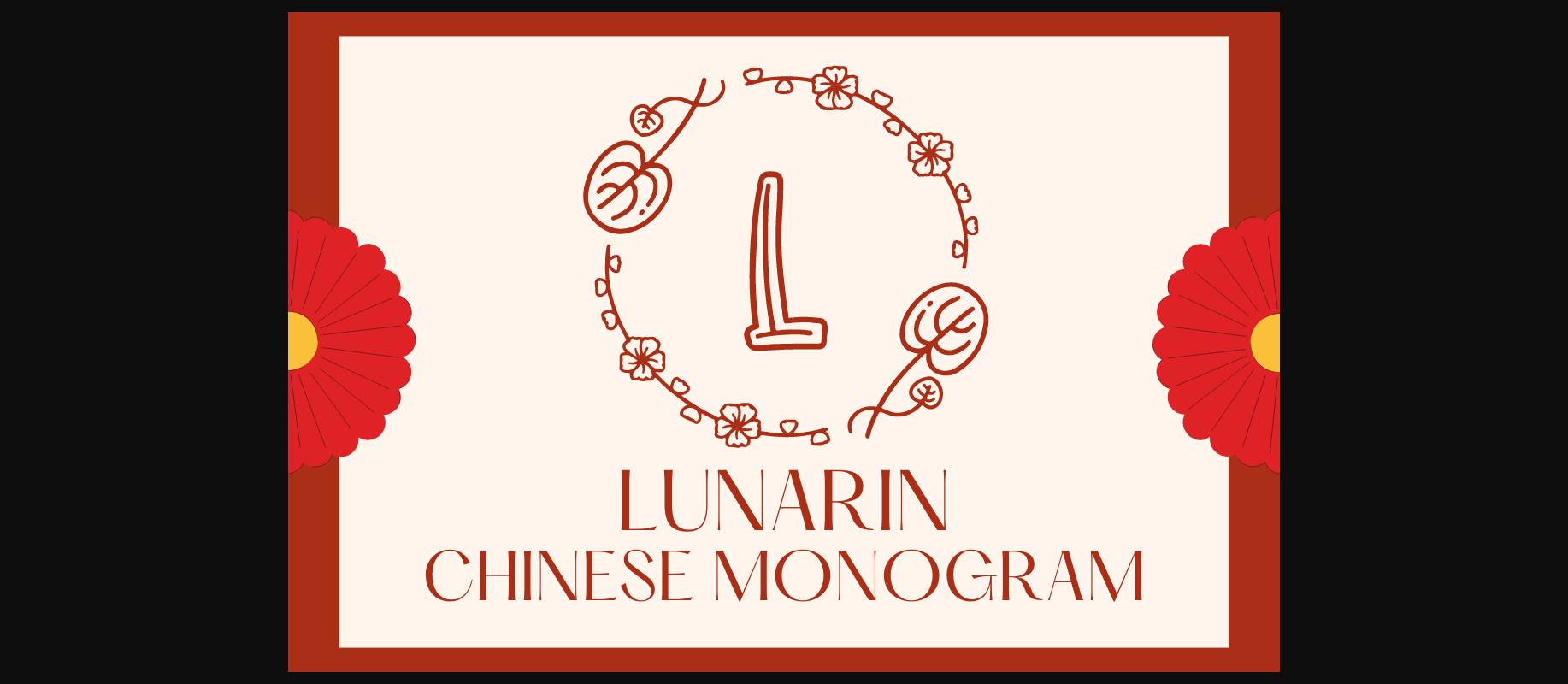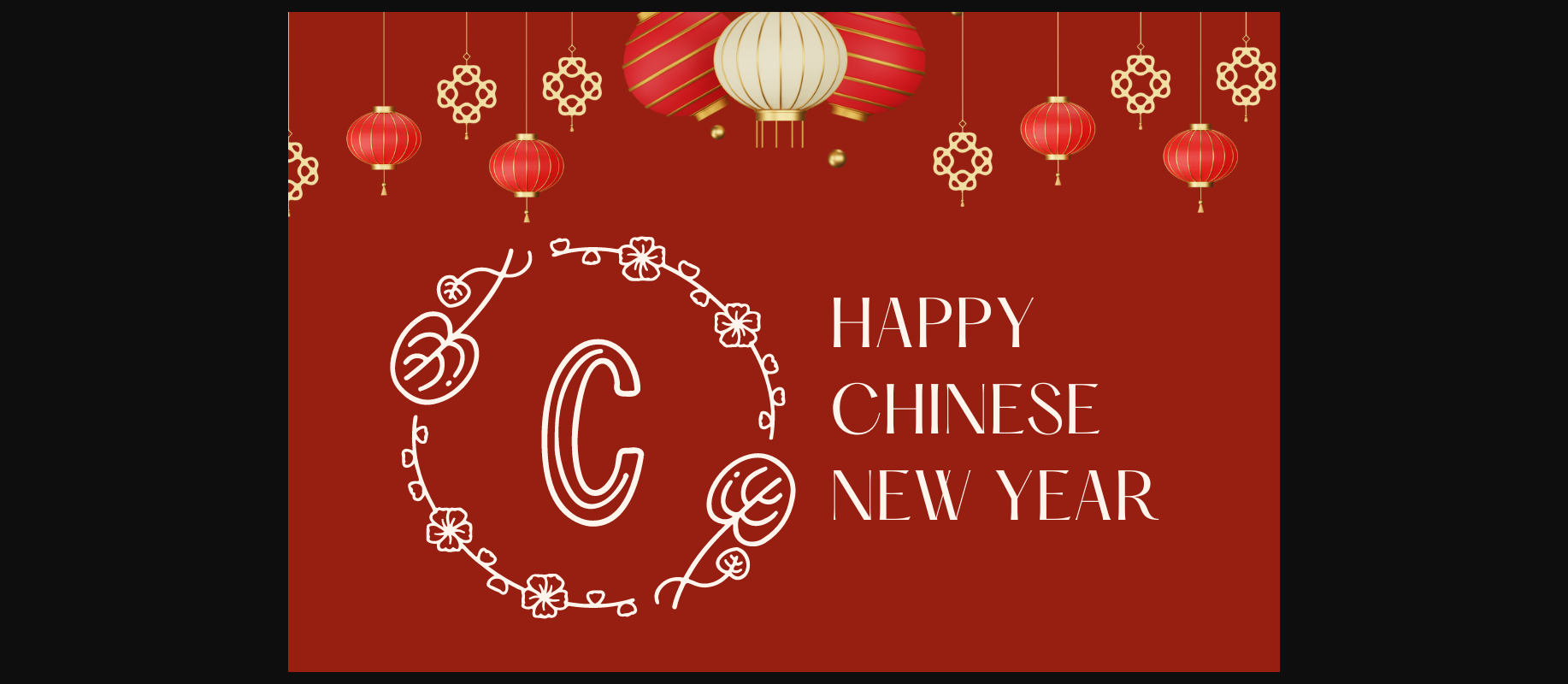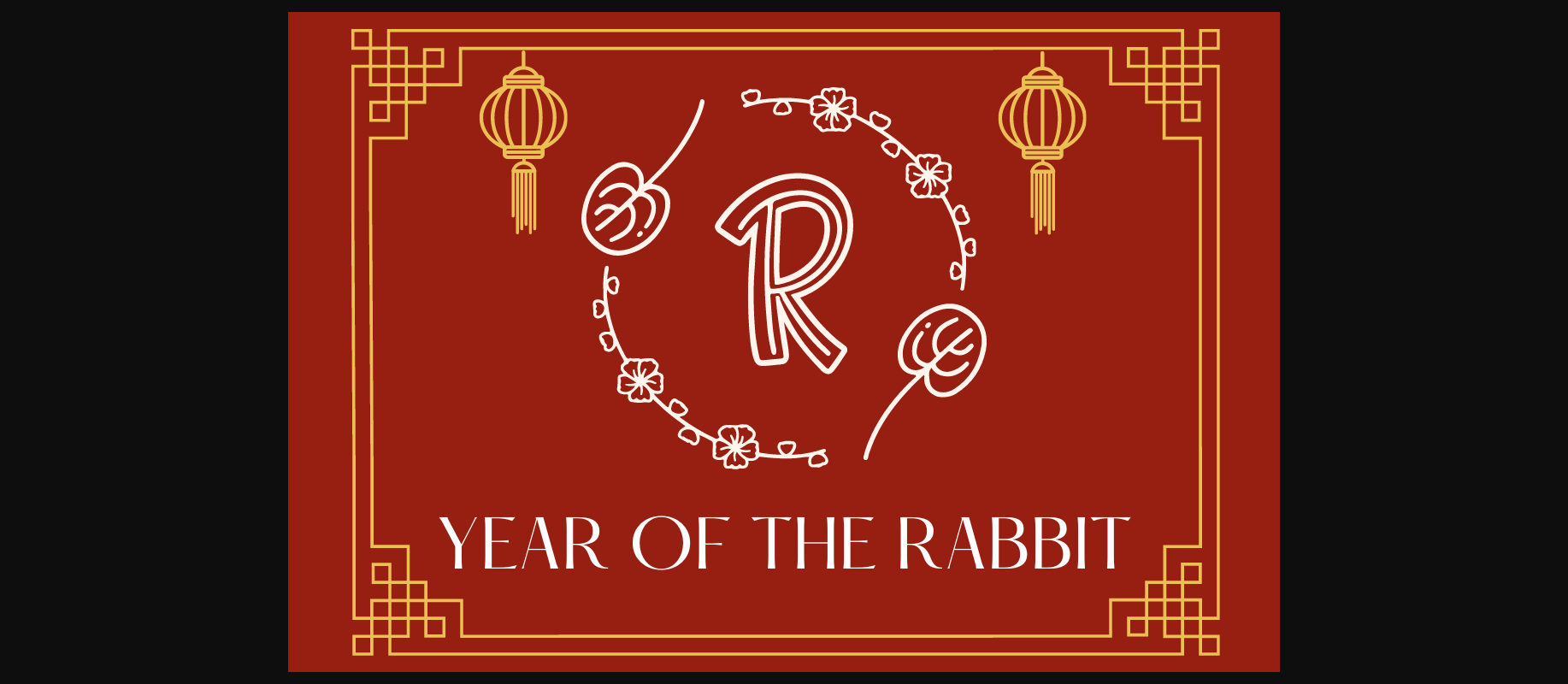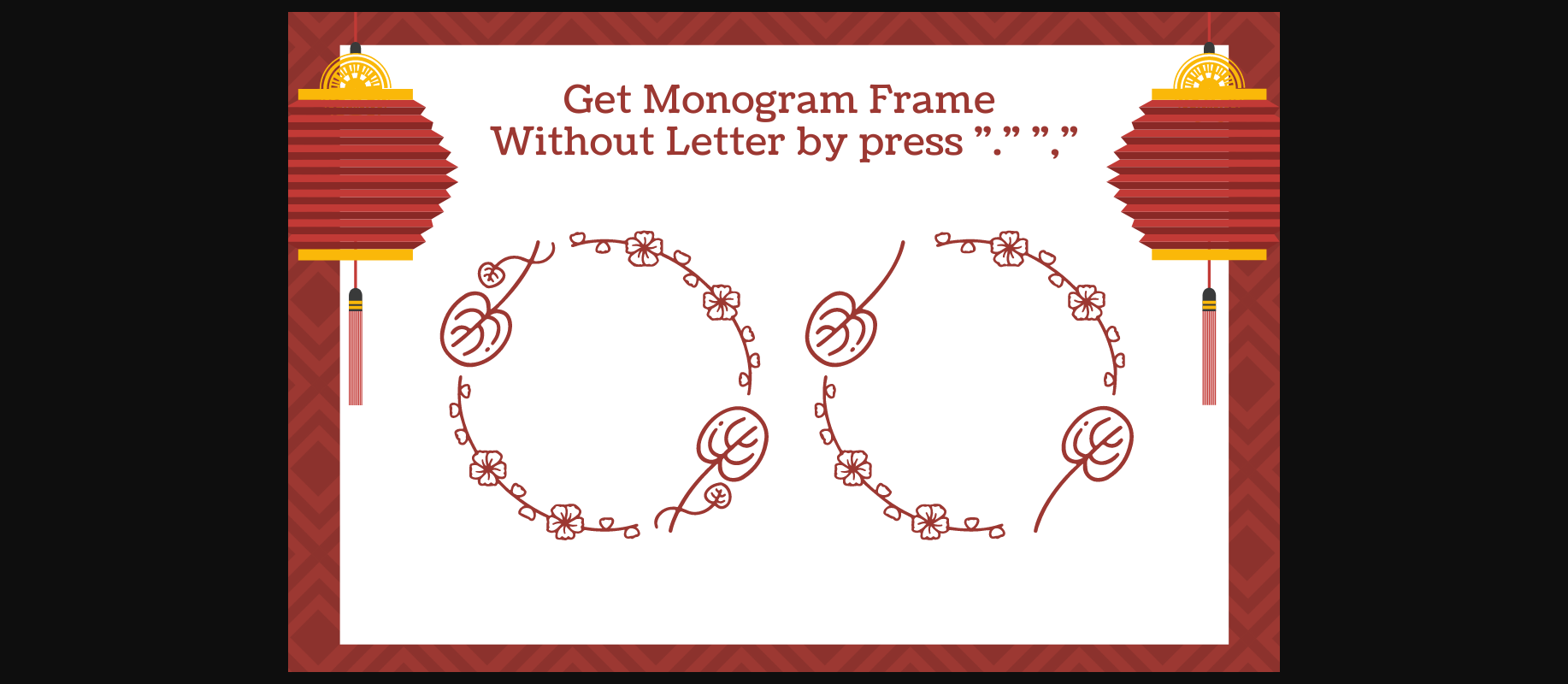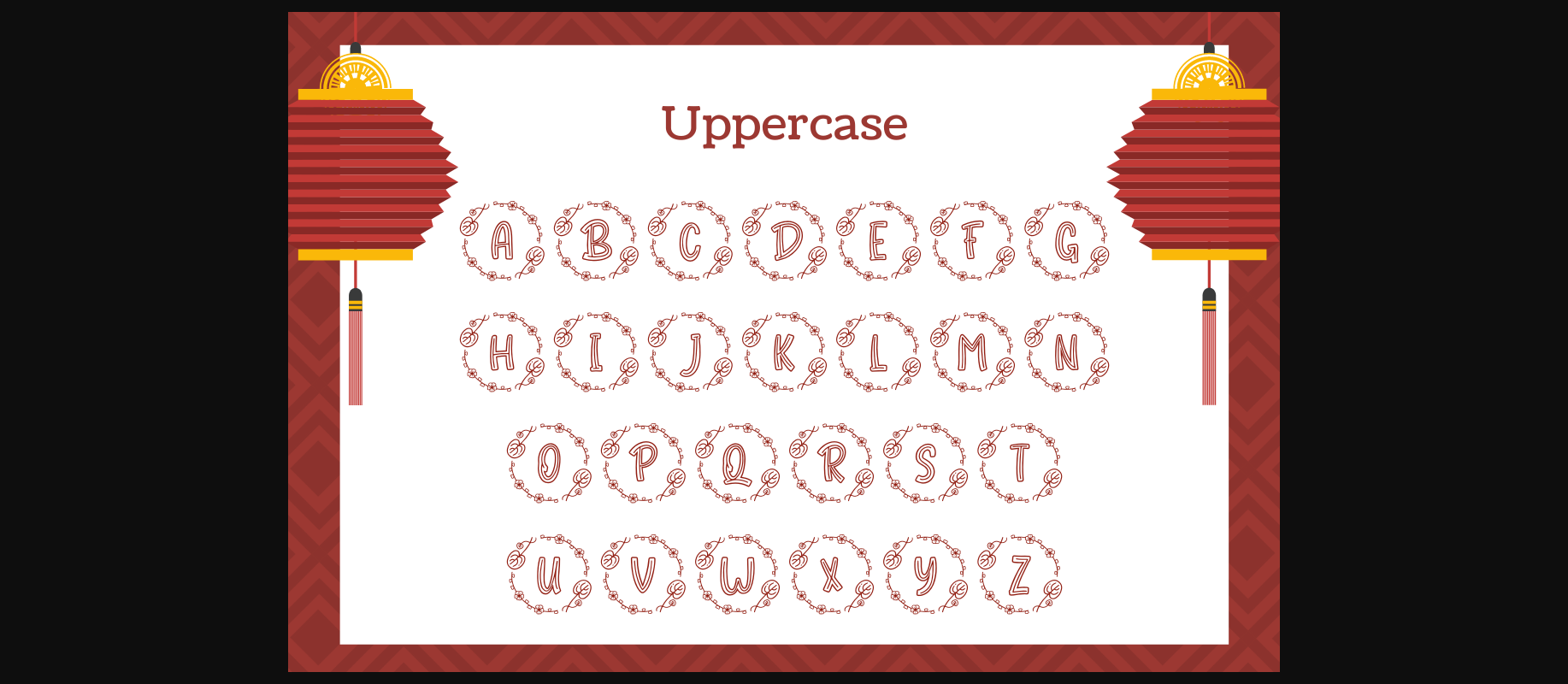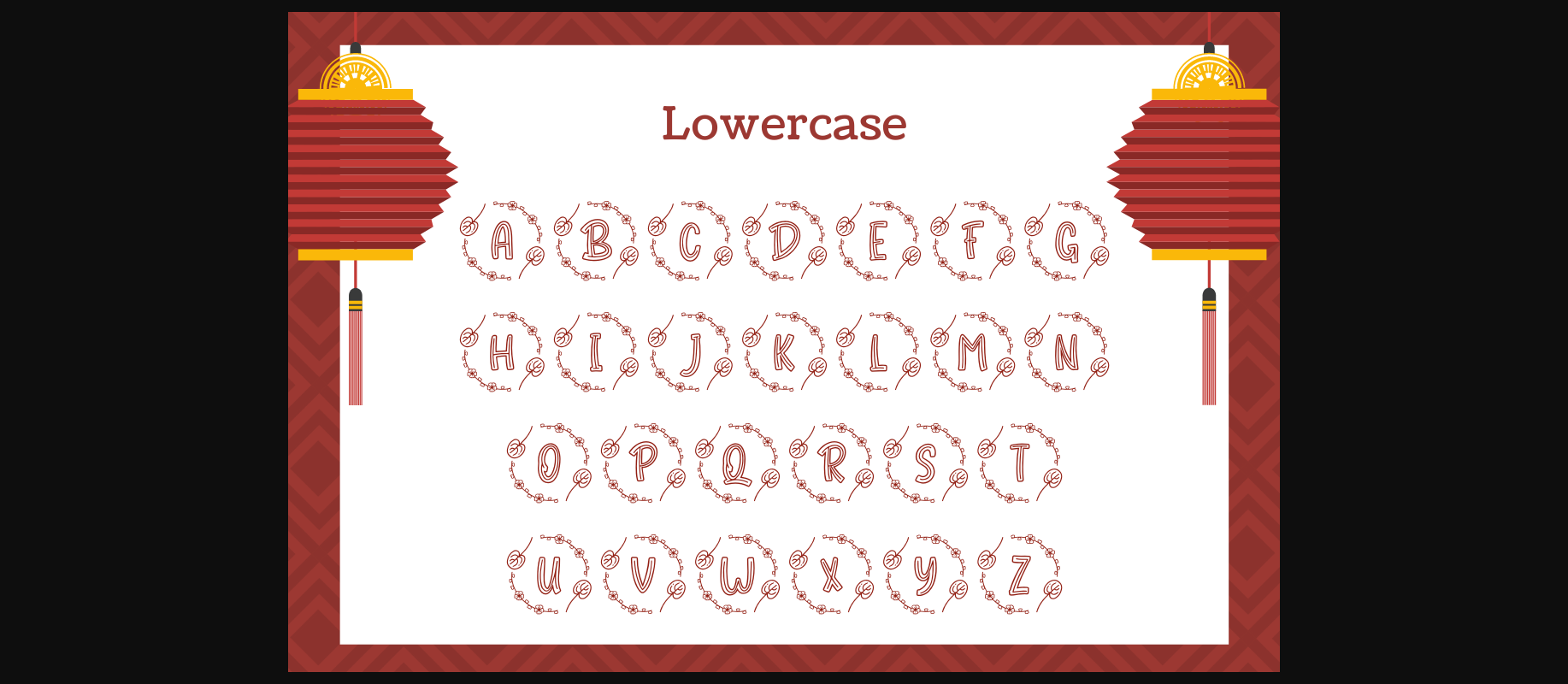
Lunarin Chinese Monogram Font
About Lunarin Chinese Monogram Font
Lunarin Chinese Monogram is a wreath display monogram inspired by Chinese botanical plants.
This font can be used to make Chinese new year themed gifts, including textiles, gifts for kids, and perfect gifts for a new homeowner, Chinese family, or anyone with a love of monograms.